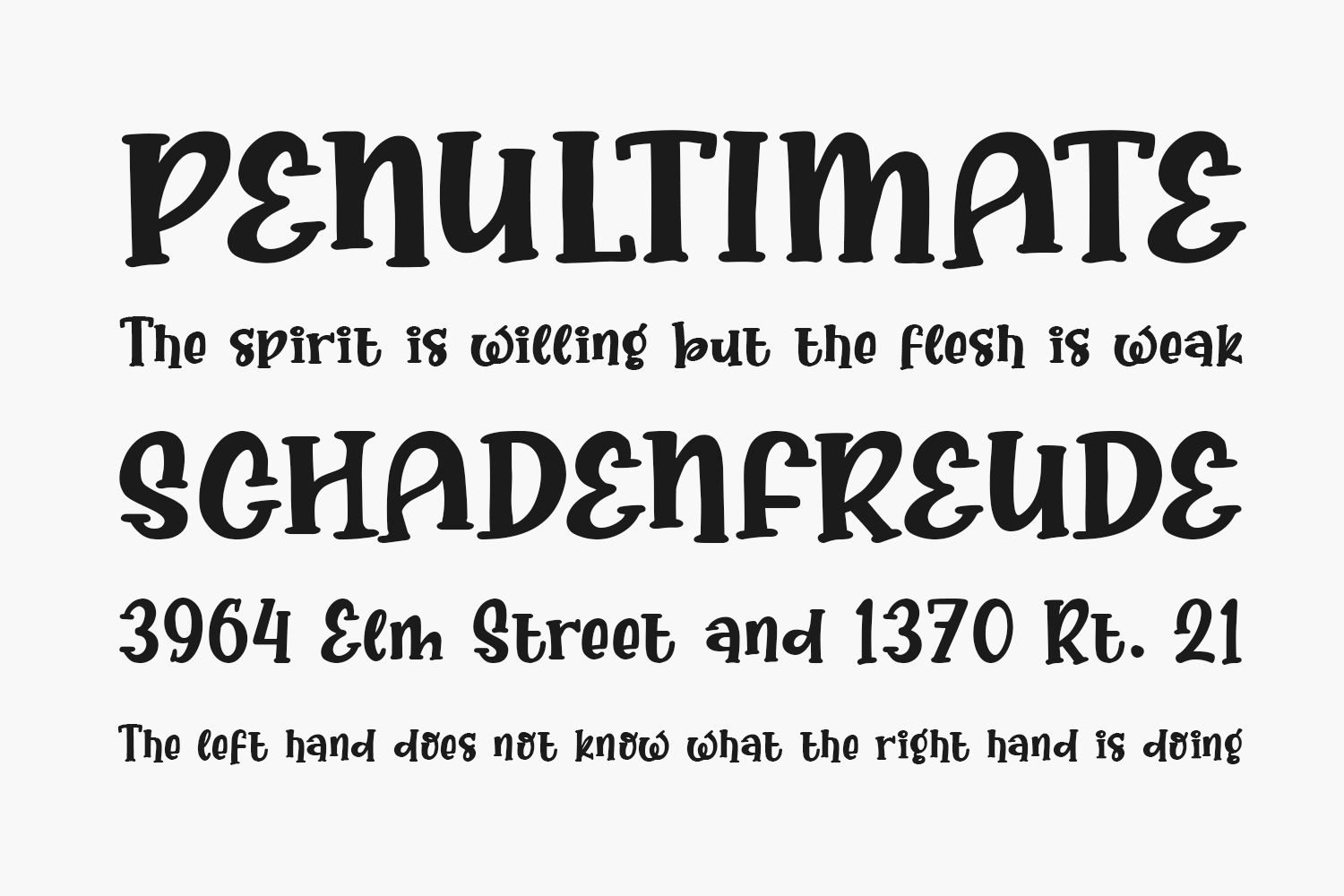
Hello Rainbow Free Font is a cute and quirky display font with an incredibly friendly feel. Whether you’re looking for fonts for Instagram or calligraphy scripts for DIY projects, this font will turn any creative idea into a true piece of art. Hello Rainbow Free Font was designed by Subectype & Orenari and is free for personal use only. Please purchase the full version for commercial use.